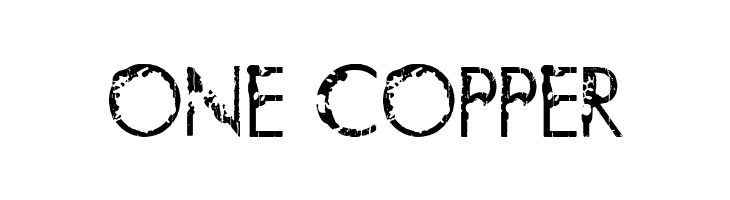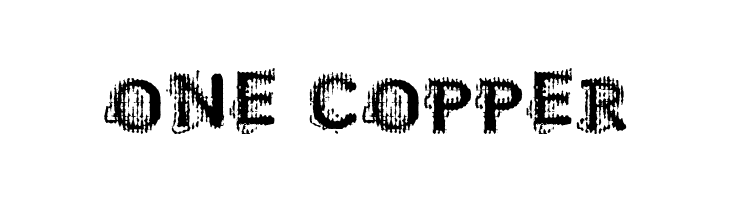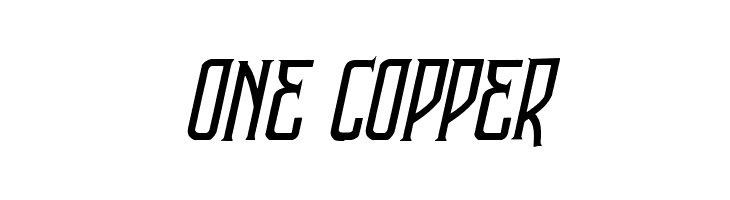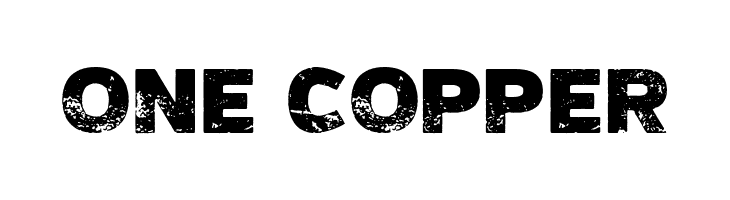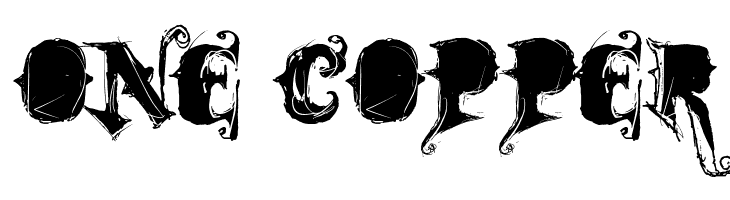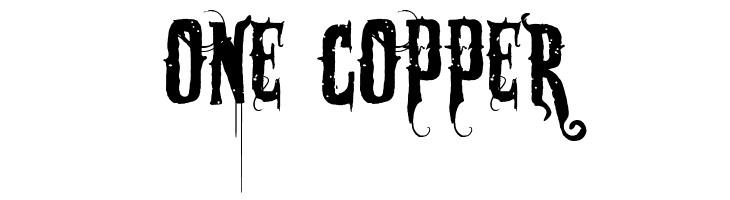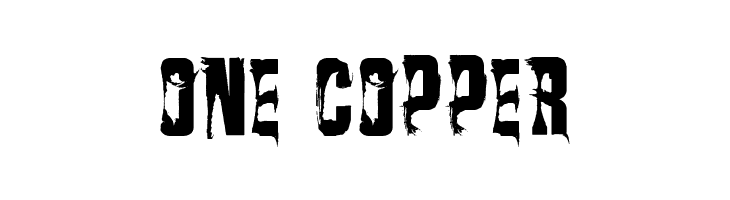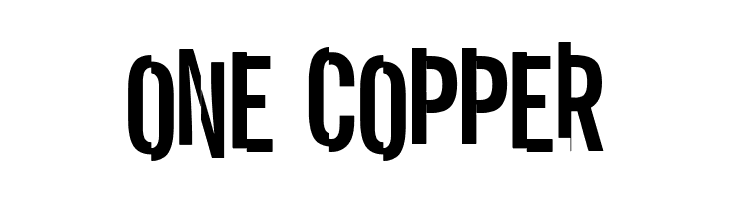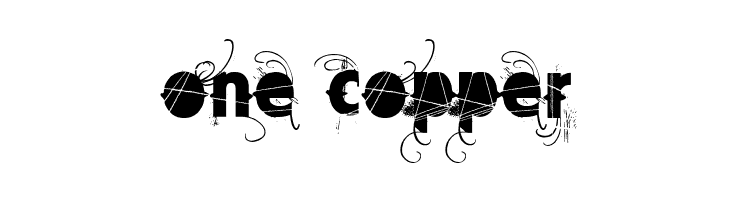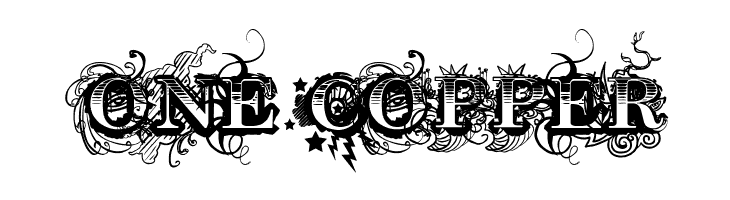
An ornate, italicized decorative font with elaborate swirls and flourishes.
A bold, decorative font with intricate patterns and thick strokes.
A bold, artistic font with a mix of solid and outlined characters, perfect for creative projects.
A bold, distressed font with a textured, vintage appearance.
A bold, decorative font with a distressed, grunge-like texture and ornate flourishes.
A bold, graffiti-inspired font with a rough, hand-drawn appearance.
A bold, 3D geometric font with a strong visual impact.
A bold, geometric font with thick, blocky characters for strong visual impact.
A rugged, hand-drawn brush-style font with dynamic strokes and an organic feel.
A distressed, grungy font with a chaotic, textured appearance.
A bold, textured, hand-drawn style font with a playful and energetic vibe.
A bold, distressed font with a futuristic, industrial style.
A distressed, grunge-style font with a textured, worn appearance.
A rugged, hand-drawn font with bold, textured strokes and an artistic flair.
A dynamic, handwritten-style font with artistic flair.
A bold, dramatic Blackletter-style font with intricate detailing.
A dynamic, angular font with sharp lines and a modern, edgy style.
A grungy, hand-drawn font with a textured, sketch-like appearance.
A bold, distressed font with jagged edges and a grungy appearance.
A bold, distressed grunge font with a chaotic, rebellious style.
A bold, distressed font with a grunge aesthetic and splatter effects.
A bold, distressed font with a grunge texture and uneven edges.
A bold, decorative font with intricate embellishments and a rebellious style.
A bold, expressive handwritten font with dynamic curves and playful irregularities.
A distressed, hand-drawn font with a vintage and rustic appeal.
A bold, hand-drawn font with a vintage, distressed style.